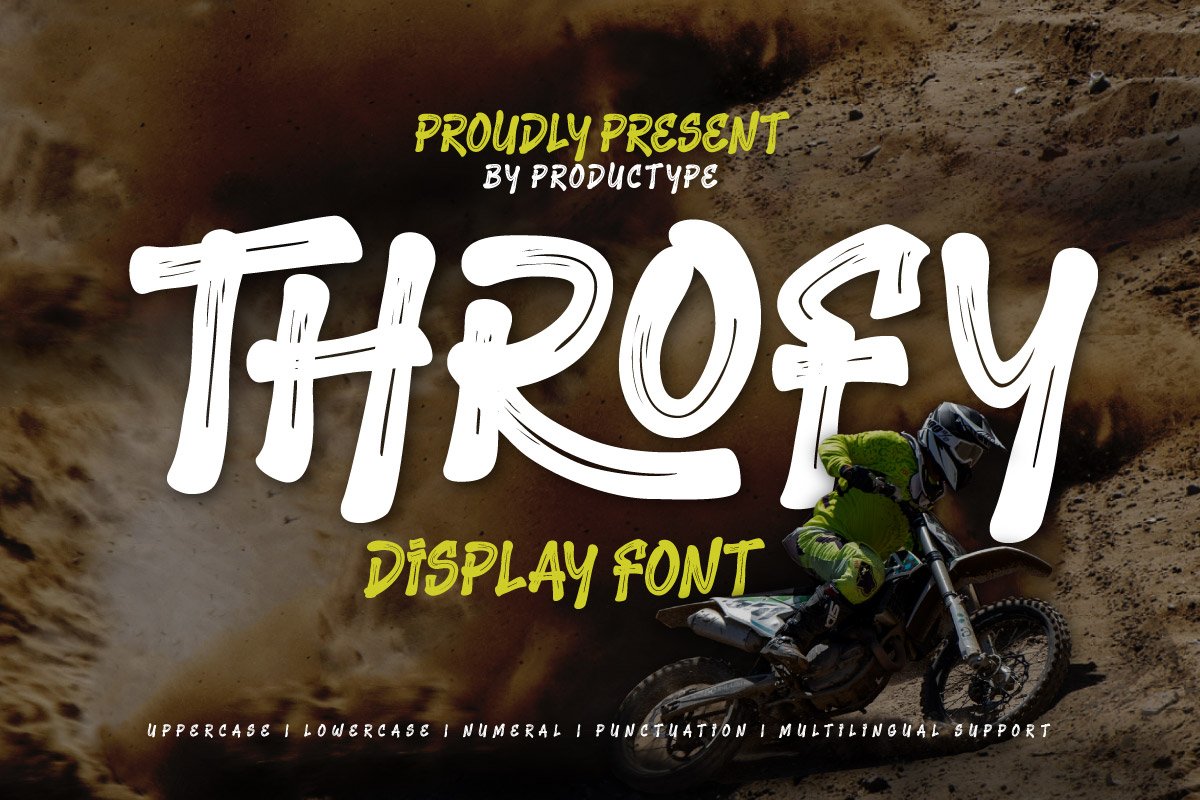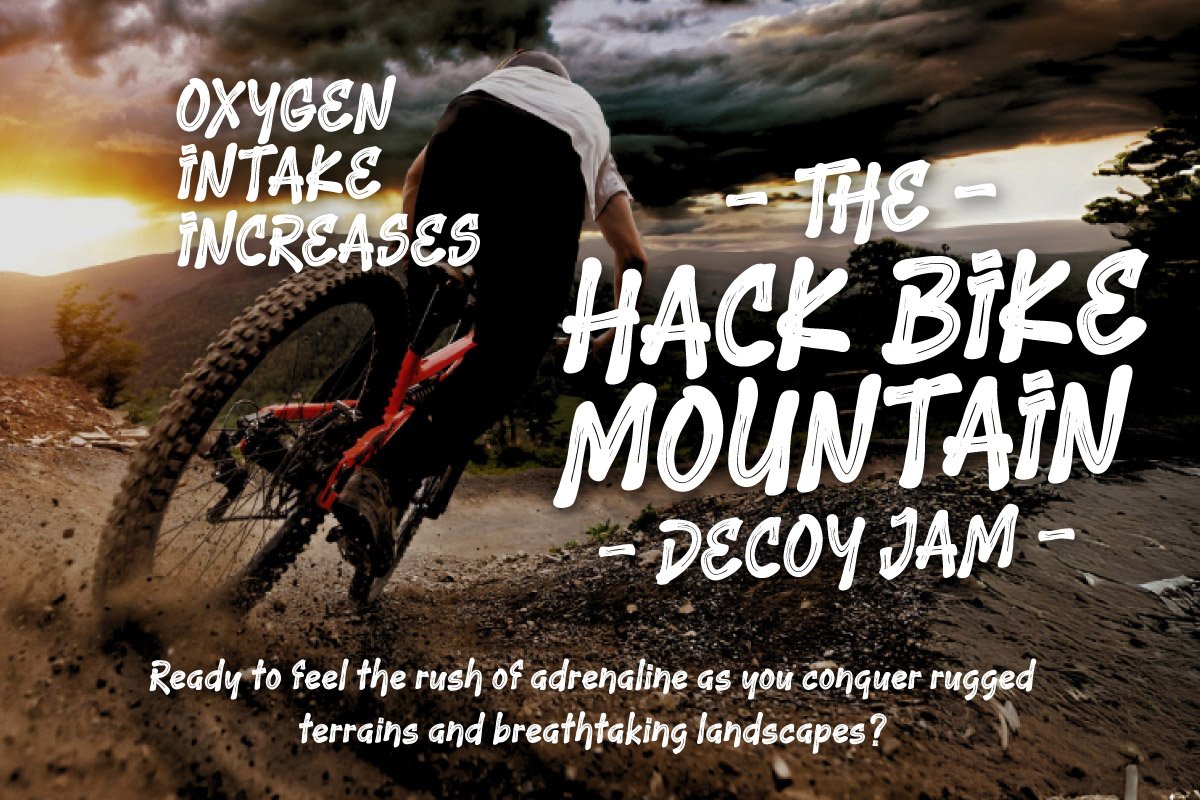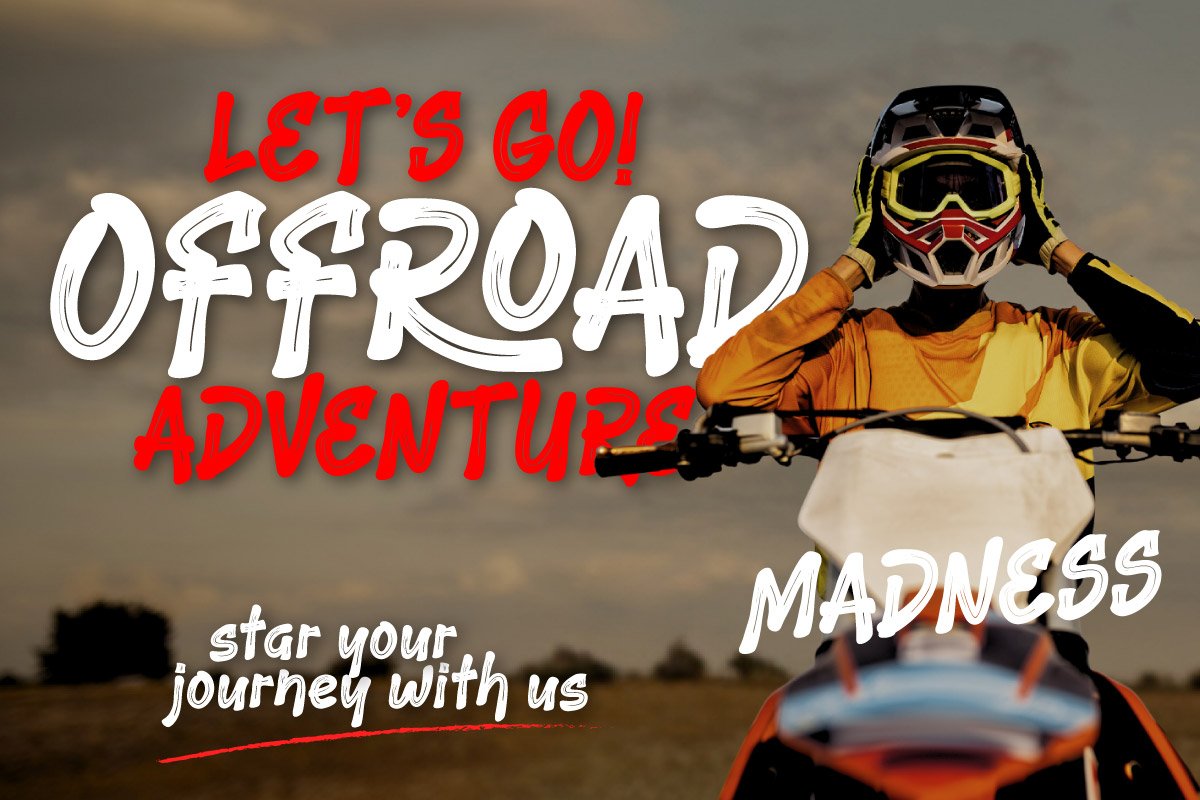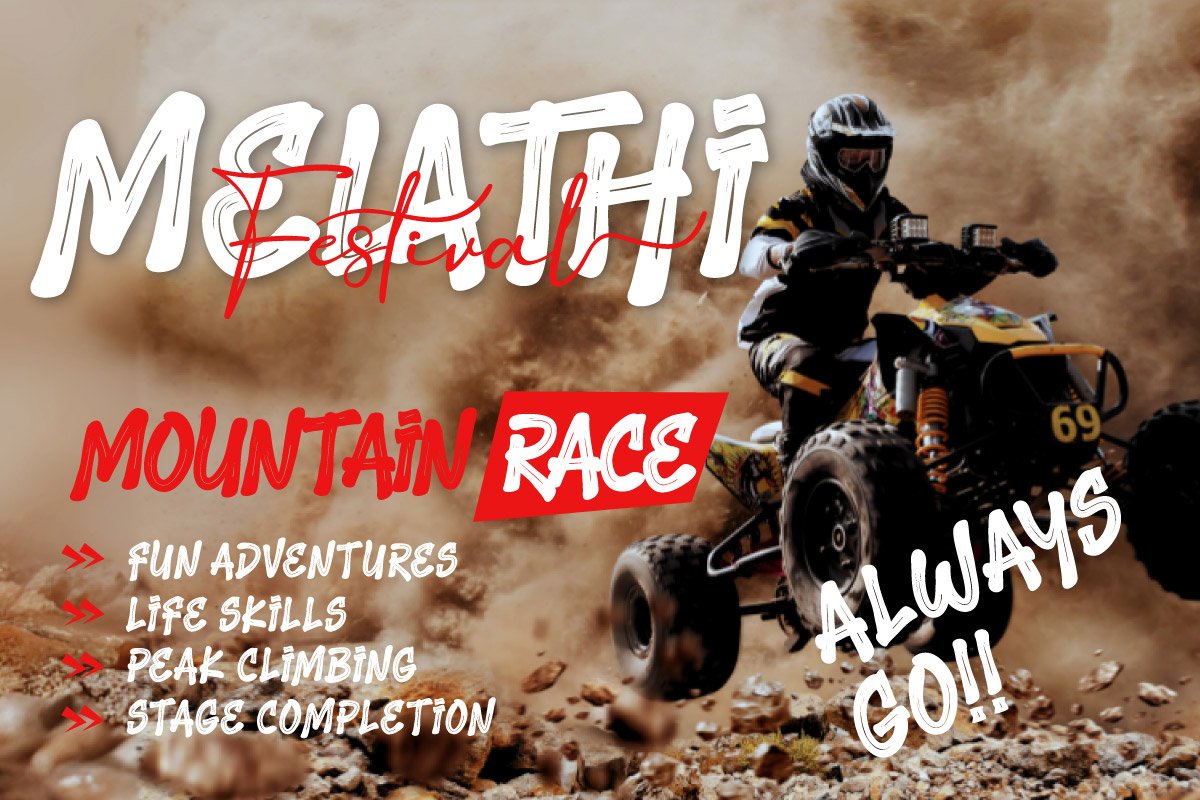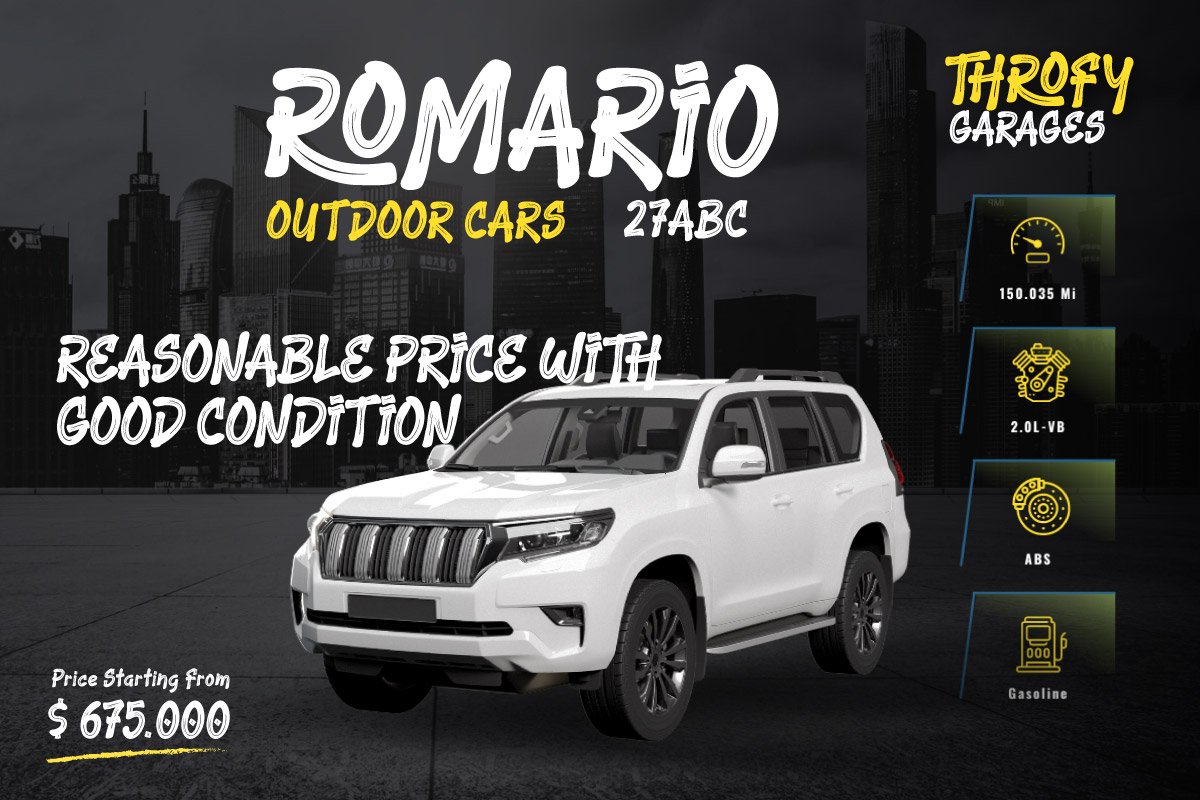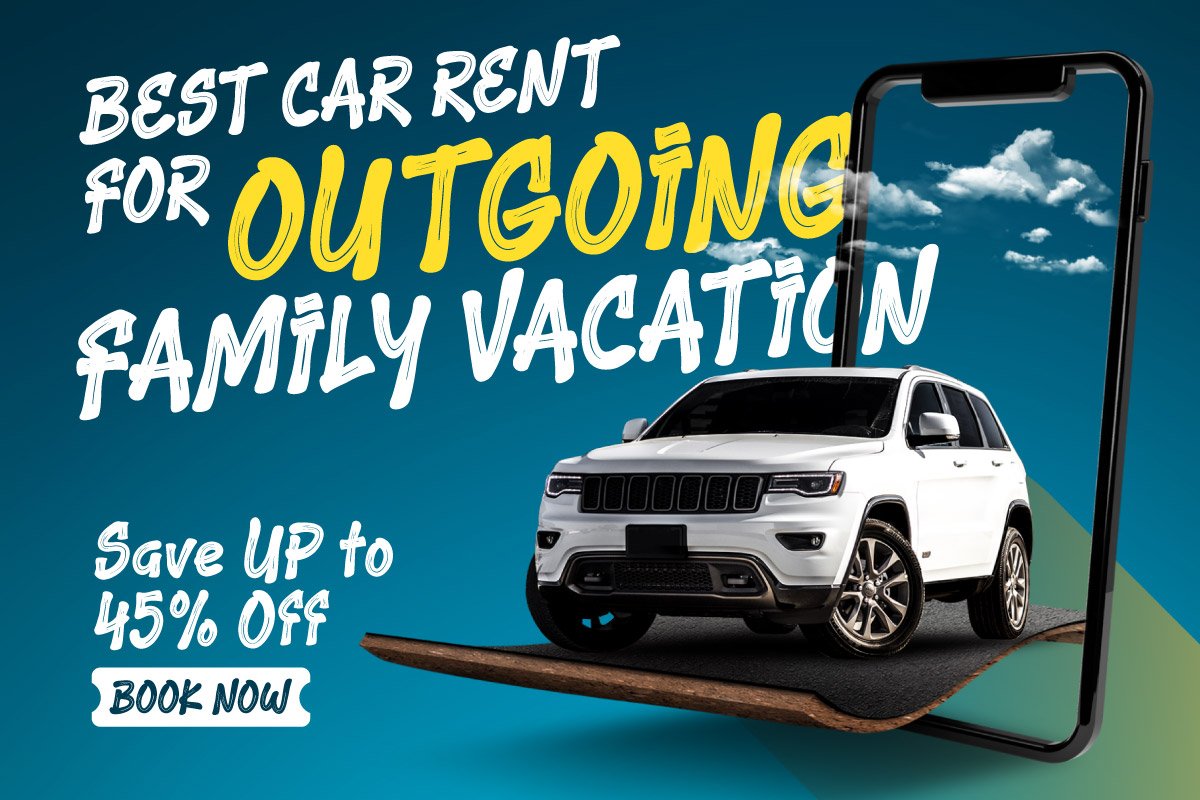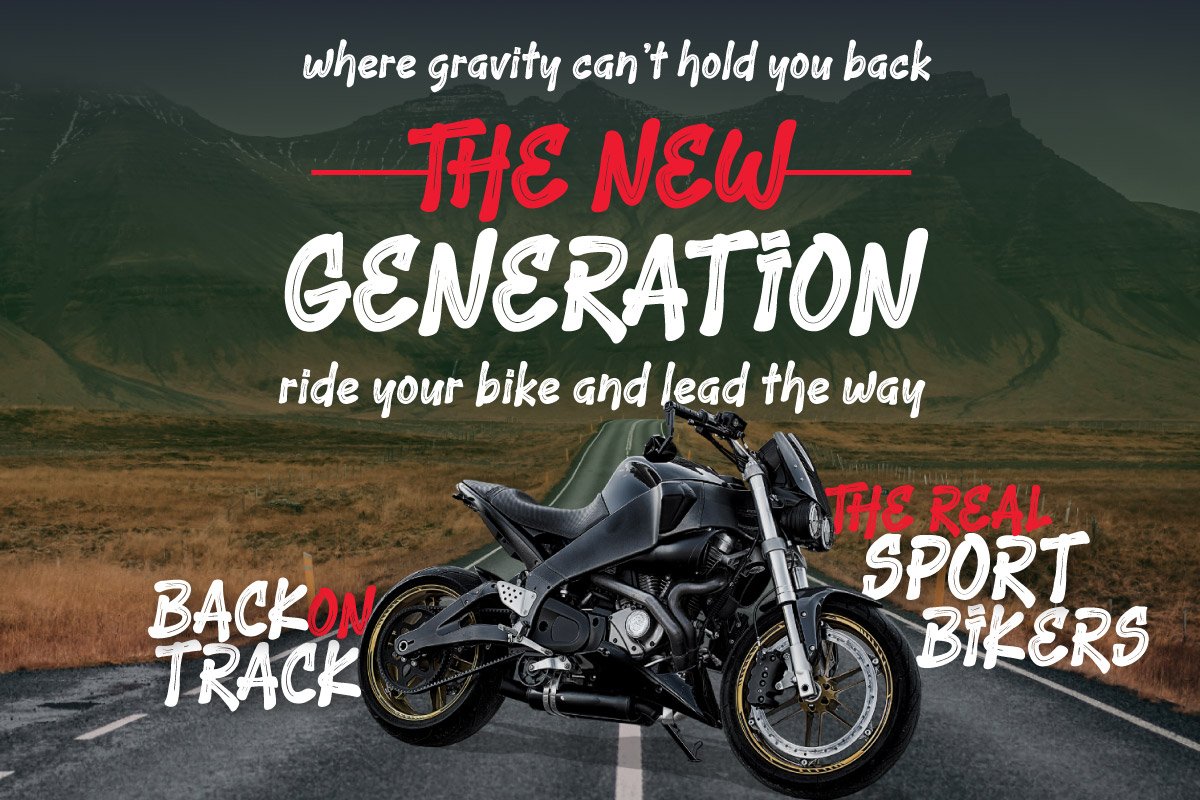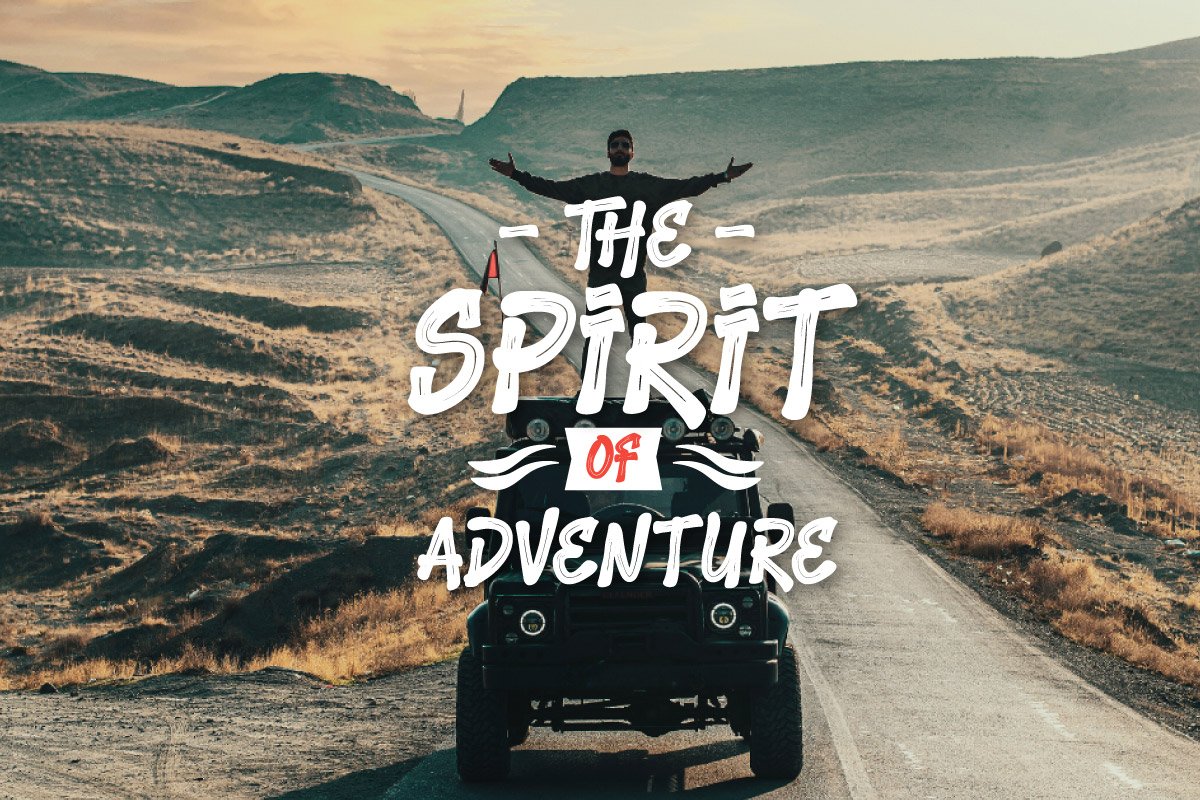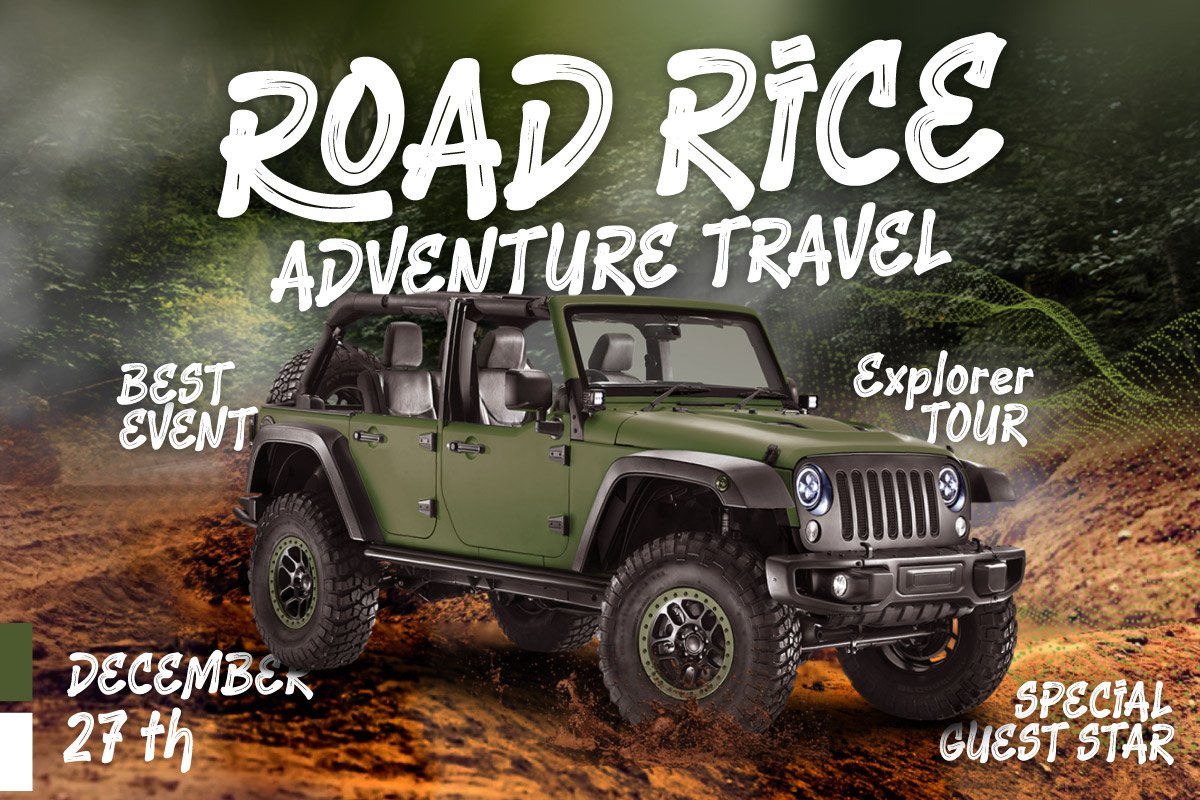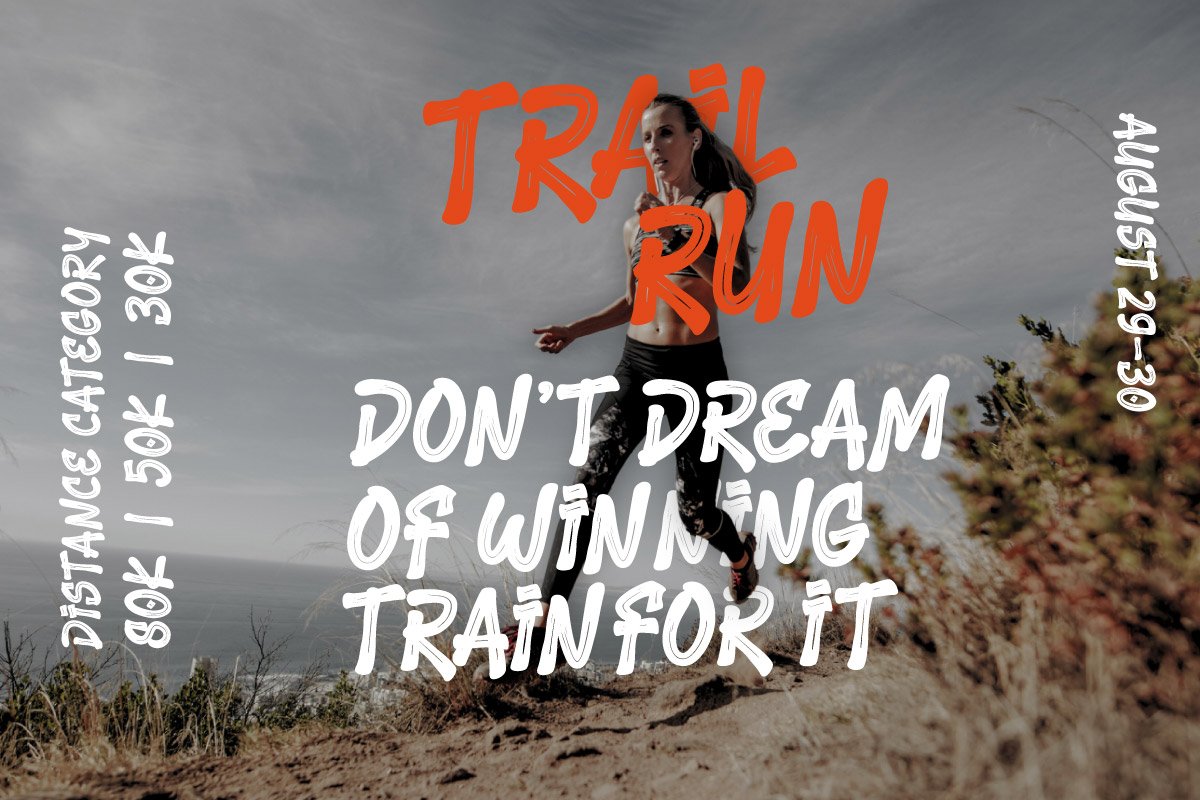
Throfy – Display Outdoor Font
Make a bold statement with Throfy, a Display Outdoor Font designed to withstand the elements while capturing attention. Ideal for outdoor signage, large-scale banners, sports events, and festival posters, Throfy features robust, sturdy letterforms that ensure your message is visible and impactful, even from a distance. Each character in Throfy is crafted with durability in mind, combining a rugged aesthetic with a modern look that’s perfect for various outdoor applications.
Throfy’s design is visually striking and highly legible, making it the go-to choice for projects where clarity and readability are paramount. Whether you’re designing for billboards, park signage, or outdoor events, Throfy delivers the perfect mix of strength and style. Its bold presence and versatile design make it suitable for commercial and creative projects, ensuring your outdoor displays are not just seen but remembered.
Elevate your outdoor designs with Throfy, the font that stands strong against the elements while delivering maximum visual impact.